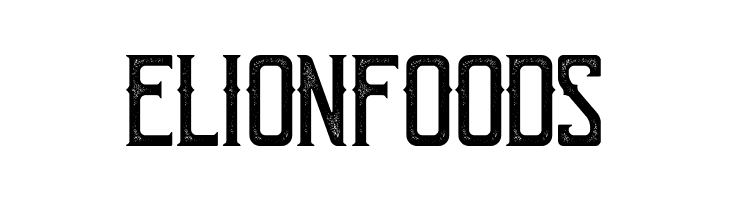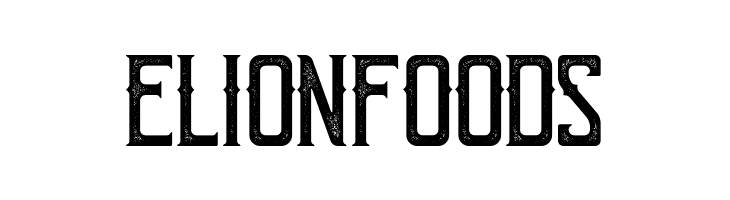
( Fonts by Hendra Maulia )
An elegant and flowing script font with intricate loops and flourishes.
( Fonts by Hendra Maulia )
An elegant and flowing script font with intricate loops and swirls.
( Fonts by Hendra Maulia )
An elegant, flowing script font with intricate loops and swirls.
( Fonts by Dikas Studio )
A bold, decorative font with a distressed, vintage appearance.
( Fonts by Dikas Studio )
A bold, distressed font with a vintage, textured style.